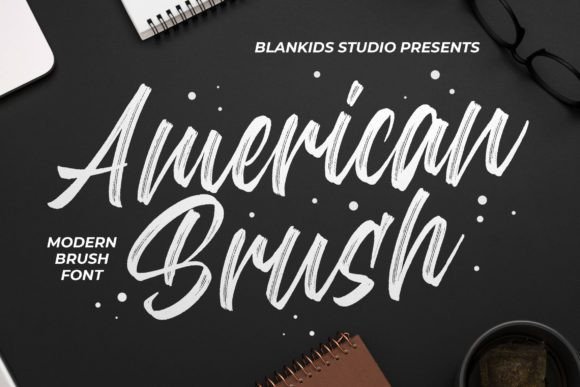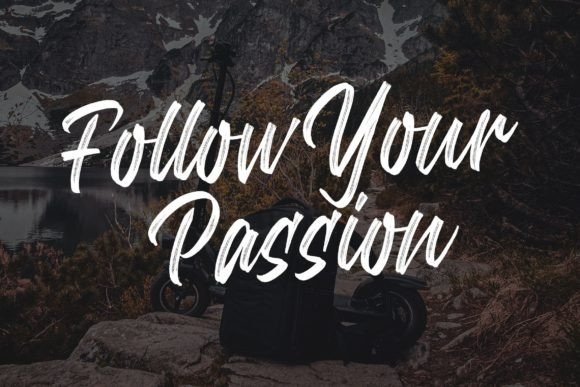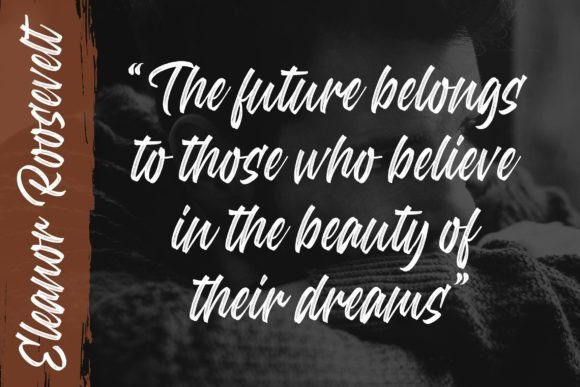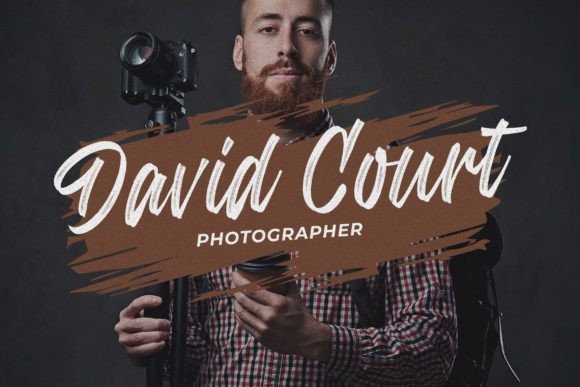
American Brush Font
About the American Brush Font
The American Brush Font offers a perfect balance of form and function for your design needs. American Brush is a stylish and beautiful script font in brush style that brings a touch of spontaneity and playfulness to any design. Its flowing strokes and natural texture give it a handmade appeal that’s perfect for logos, invitations, or anything that needs a touch of personality.
American Brush Font Usage Examples
American Brush Font Example